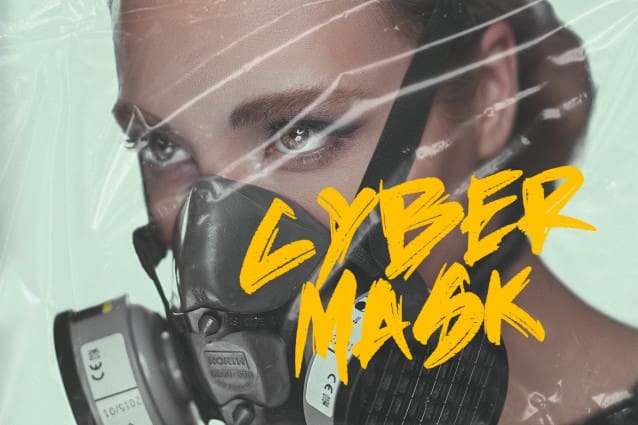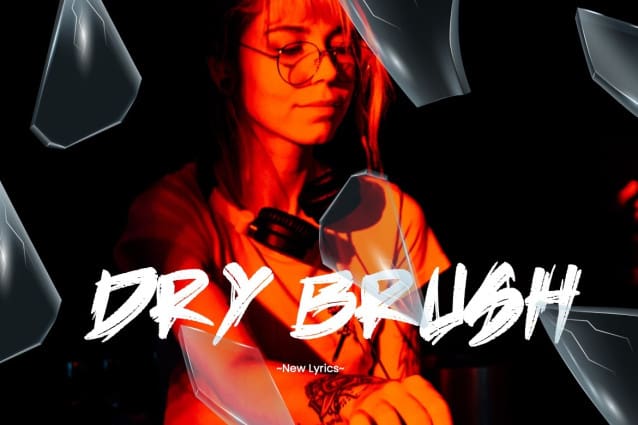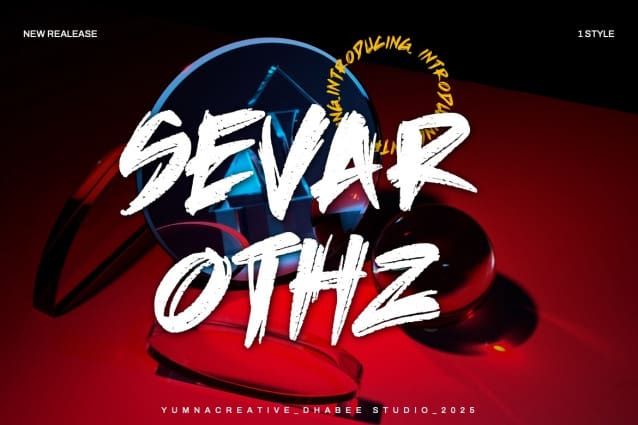
Sevarothz Brush Font
Sevarothz Brush Font. This Font is a delicate, elegant and flowing handwritten font. It has beautiful and well as a unique blend of ligatures a letter, so that the authors compose it with a and little swirly embedding, so that a modern font is formed and ready to make a statement by adding elegant and unique flair to your next design project. Add it to your most creative ideas and notice how it makes them come alive!